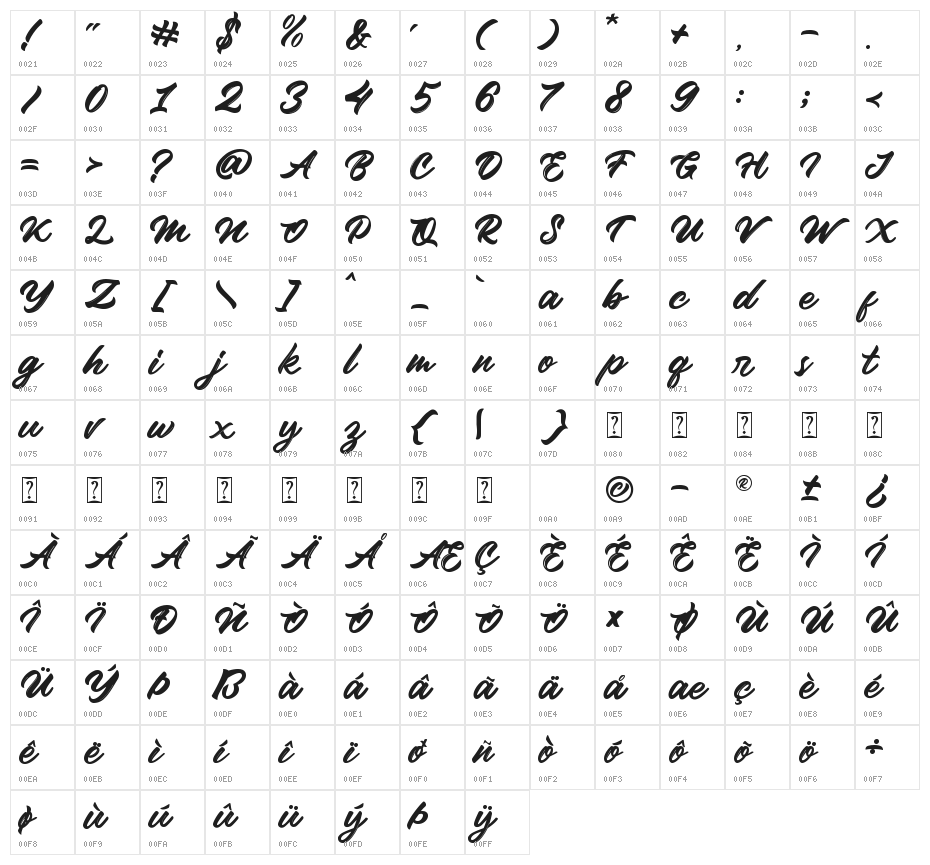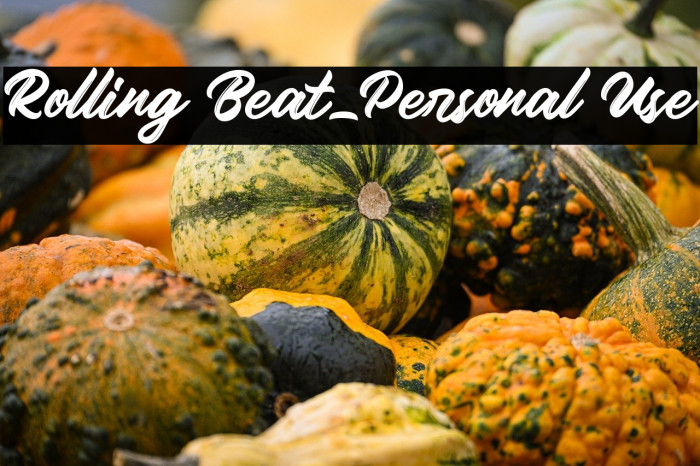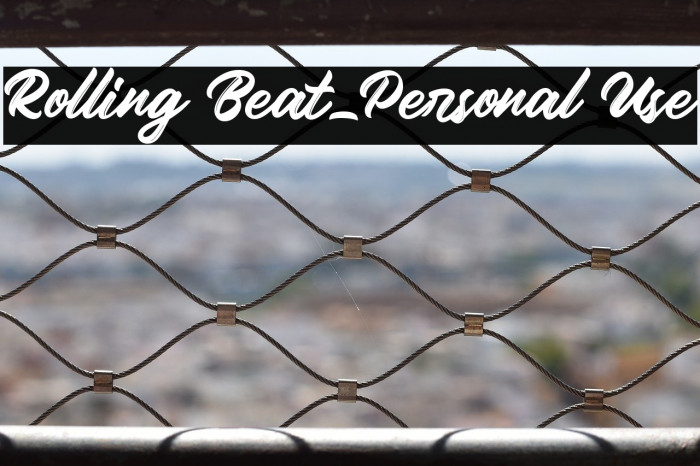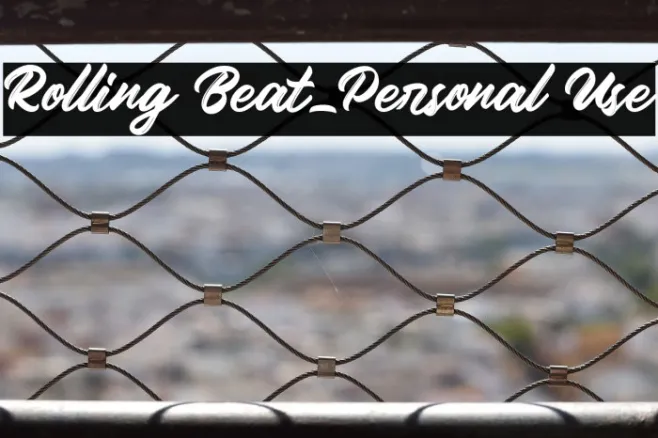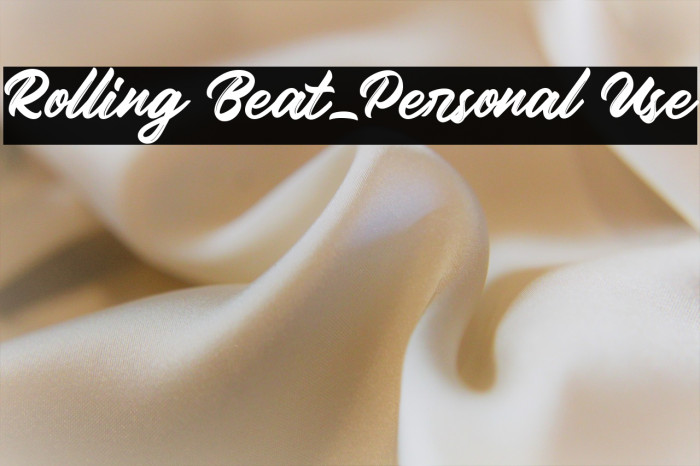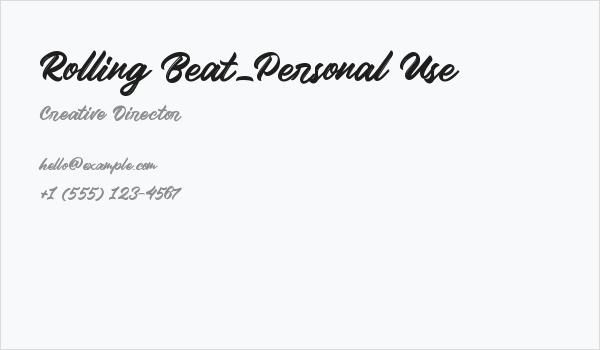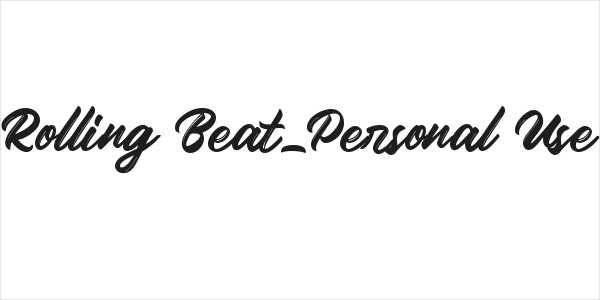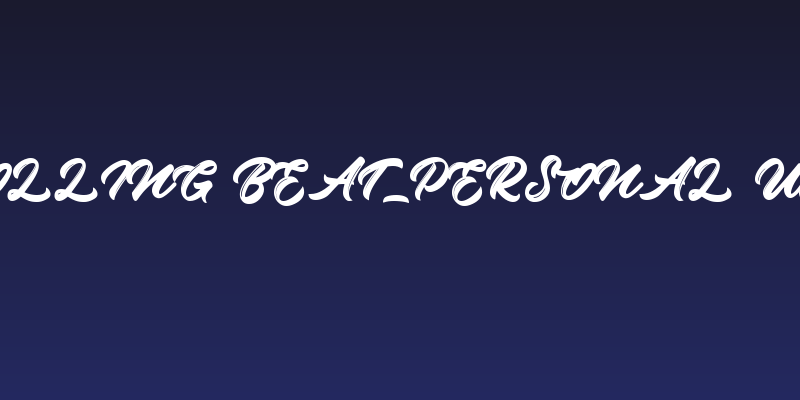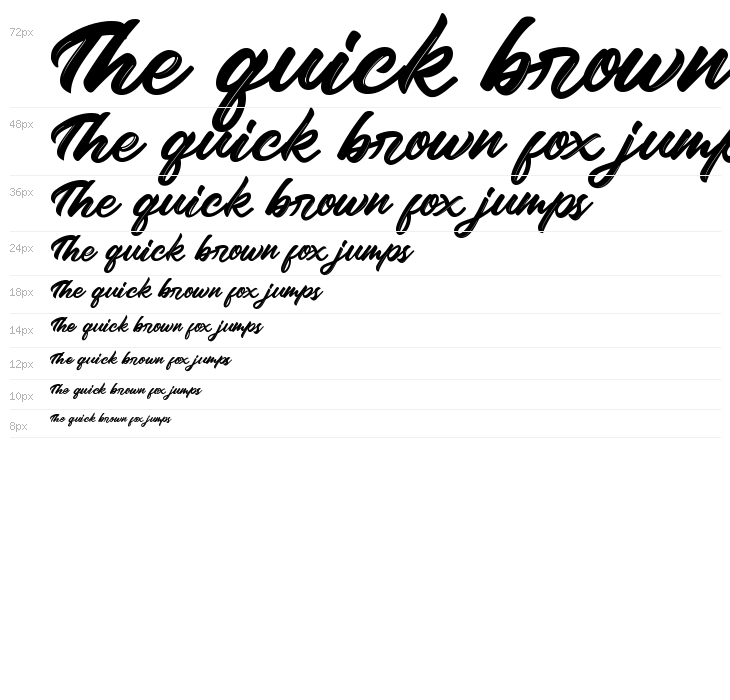
Rolling Beat_Personal Use Font
Rolling Beat_Personal Use Description
This font features a bold and dynamic script style with a modern flair. The characters are connected, creating a fluid and continuous flow that mimics natural handwriting. The strokes are thick and expressive, with a high contrast between thick and thin lines, adding to its dramatic appearance. The uppercase letters are ornate and slightly larger than the lowercase, which are more rounded and compact. Numbers and special characters maintain the same bold and flowing style, ensuring consistency across all glyphs. This font is designed to capture attention and convey a sense of elegance and creativity.
| Proposed Projects | Ideal for branding, logos, invitations, and any project requiring an elegant and expressive script. |